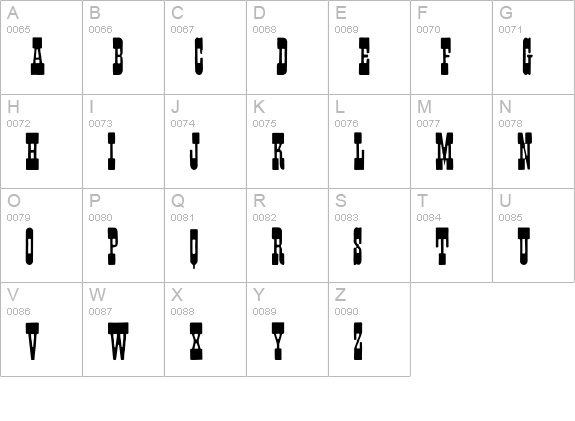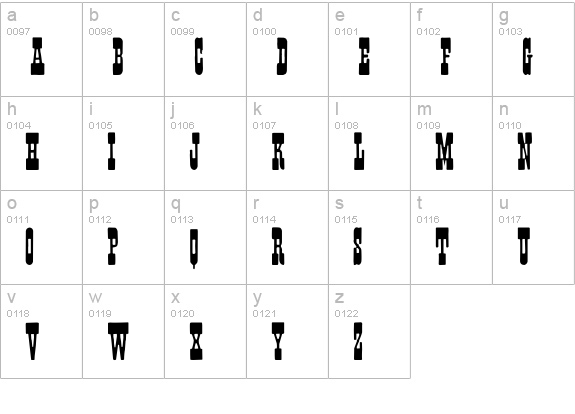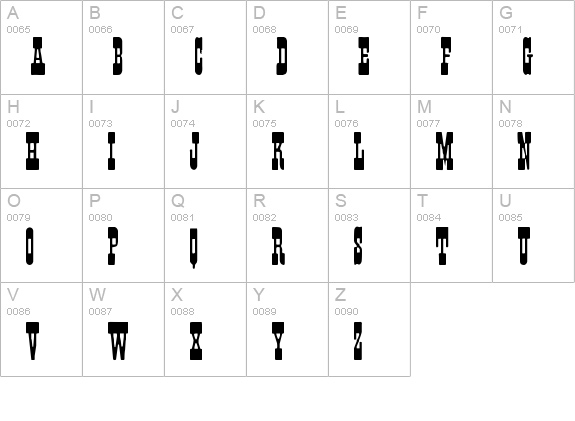
Fisticuffs Font Details
Introducing Fisticuffs font - a bold and energetic typeface that packs a punch! With its dynamic and playful design, Fisticuffs is perfect for making a statement in your projects. Whether you're looking to add a touch of attitude to your designs or create eye-catching headlines, this font is sure to deliver. What's even better is that Fisticuffs is available for free download at FontsMarket.com! That's right, you can get your hands on this unique font without spending a dime. Don't miss out on the opportunity to add Fisticuffs to your font collection and elevate your designs to the next level. Download now and start creating with Fisticuffs today!